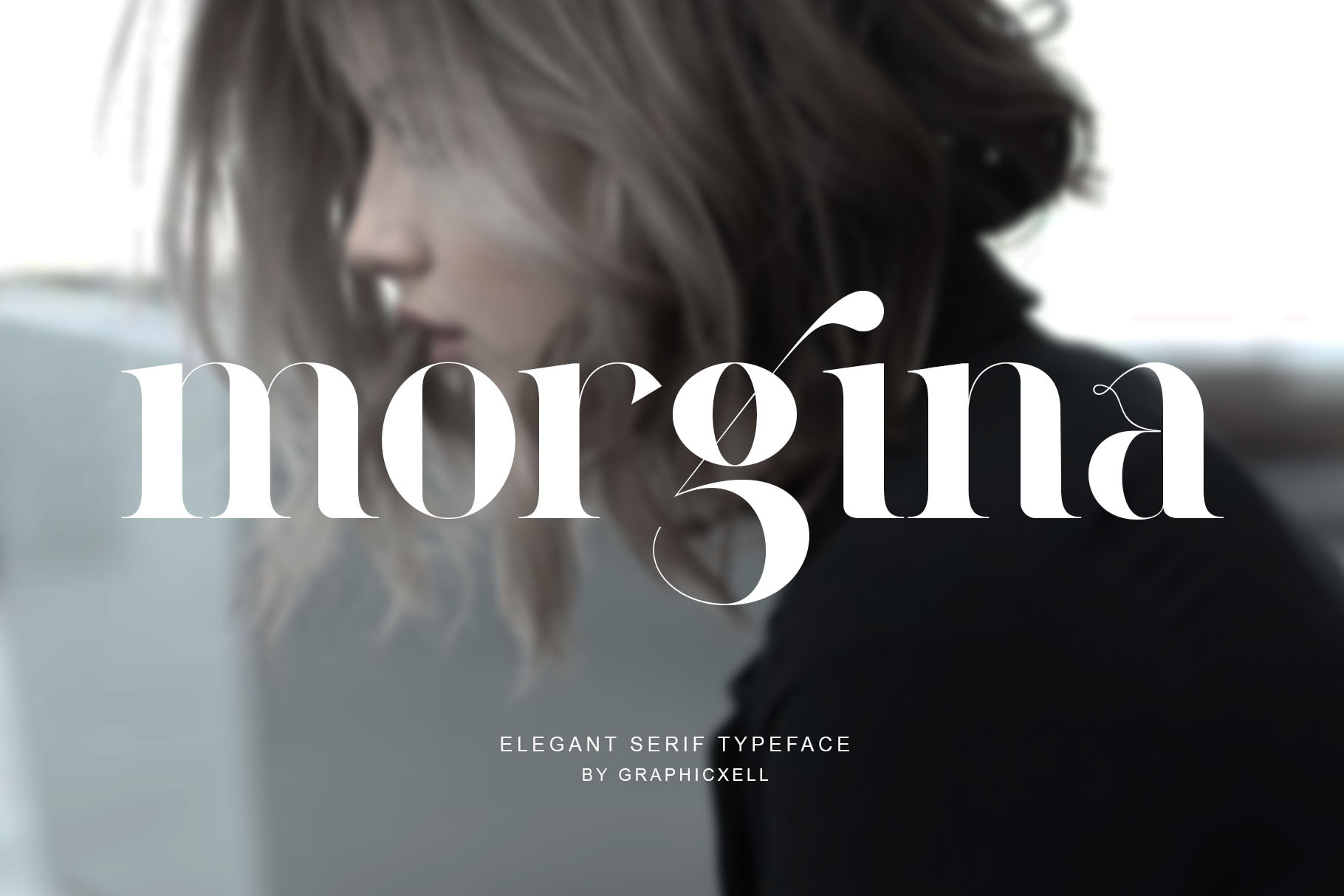
Morgina - Ligature Typeface
Morgina inspired by the famous minimalist logo perfect for the purposes of designing templates, brochures, videos, advertising branding, logos, invitation, layout design, elegant crafting, beauty design and more.